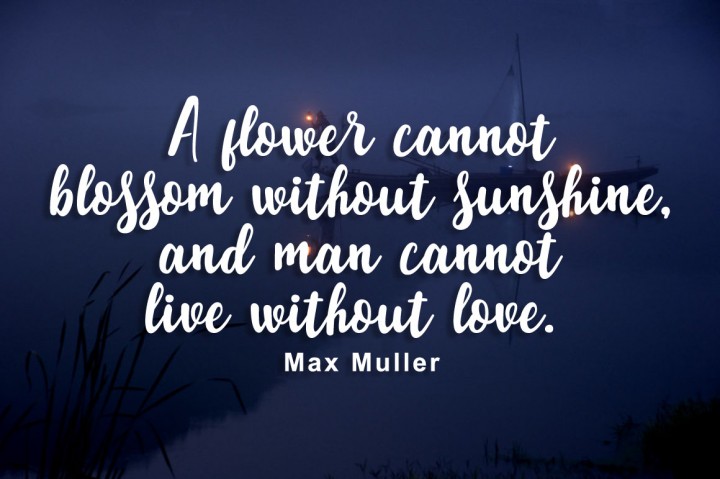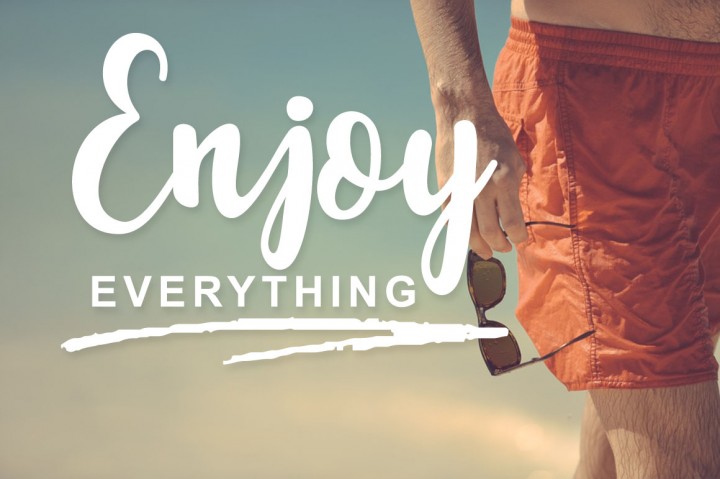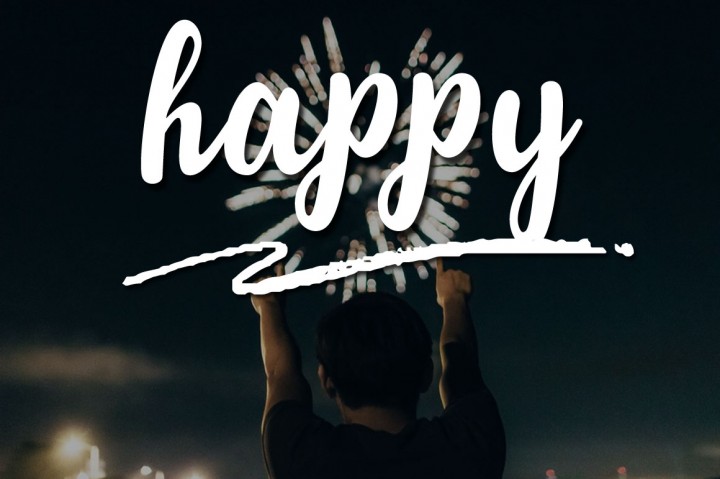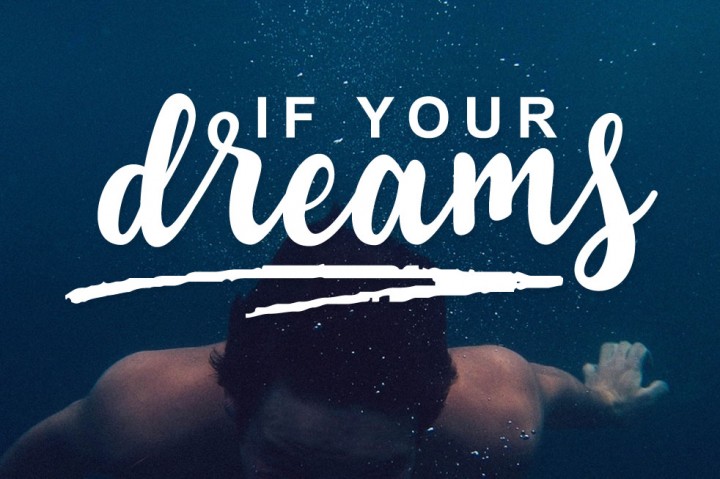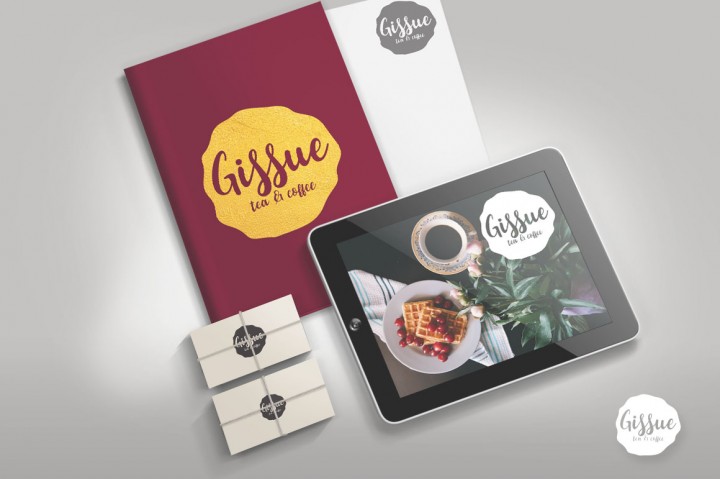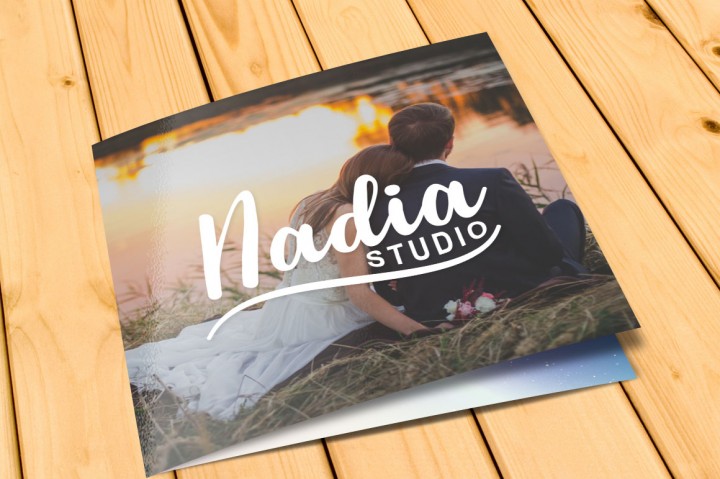
Introduction to Peque Font
Peque is a fresh, modern script font designed by hand by the PointLab foundry.
The Peque font comes with Peque Script and Peque Vector, a fun playful font filled with illustrations Peque features over 700 high quality glyphs and is packed with swashes and swooshes.